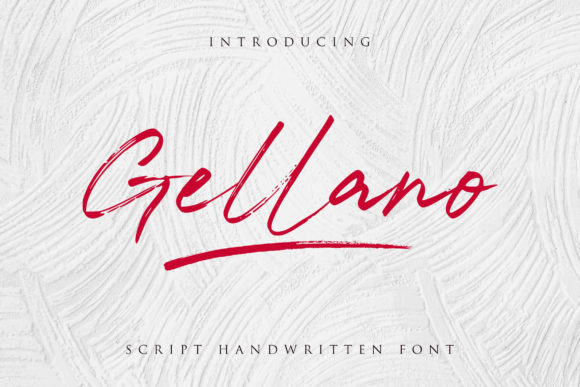
Introducing Gellano, the script font masterpiece that will ignite your creativity and leave an unforgettable impression on your audience. This enchanting font is a work of art, carefully crafted to evoke emotions and elevate your designs to new heights.
Immerse yourself in the world of Gellano, where whimsical curves and effortless elegance intertwine. Its brush-like strokes possess a natural charm that captures the essence of handwritten beauty, adding a touch of warmth and authenticity to your creations. Each letterform dances across the page, inviting you to explore the infinite possibilities of expression.
Whether you're a seasoned designer or just starting your artistic journey, Gellano is the perfect companion for a wide range of projects. Unleash your imagination and craft captivating logos that stand out from the crowd. Adorn product packaging with a touch of handwritten elegance, making your products irresistible to customers. Capture the essence of your brand through stunning photography enhanced by Gellano's enchanting presence.
But Gellano's versatility extends far beyond these traditional applications. Imagine using it to create heartwarming wedding invitations that convey the depth of your love. Personalize social media posts with a touch of whimsy and charm, engaging your followers in unforgettable conversations. The possibilities are endless, limited only by your boundless creativity.